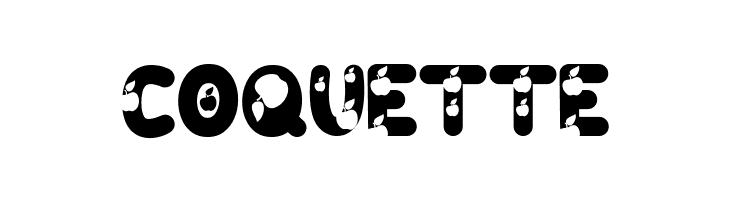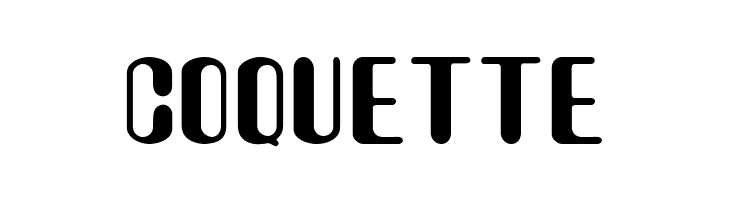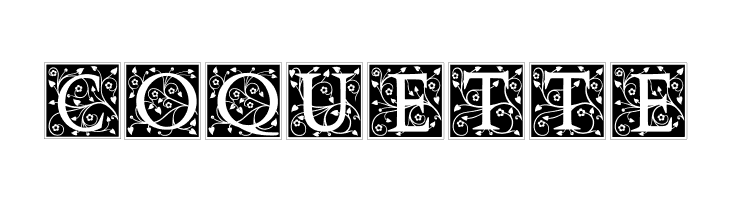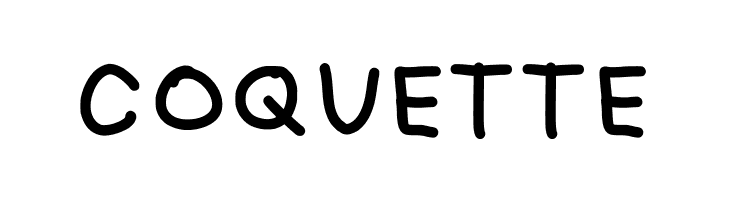
A playful, hand-drawn font with bold, rounded strokes and a whimsical style.
A playful, handwritten font with fluid strokes and a lively style.
A display font using portrait images for each character.
A pictorial font using stylized portraits for each character.
Photographic portrait-based decorative display font.
Photographic silhouette display font with unique images for each character.
Photographic portrait glyphs in a decorative, high-contrast style.
A display font using stylized photographic images for each character.
A playful, circle-patterned decorative font ideal for creative projects.
A dynamic and fluid script font with connected letterforms and a handwritten style.
A bold, flowing script font with elegant curves and dynamic style.
A playful, rounded font with a whimsical and friendly appearance.
An elegant script font with intricate swashes and flowing characters.
A bold, playful handwritten font with consistent strokes and a casual style.
A bold, playful font with bite-like cut-outs in each character.
A playful font made entirely of fruit illustrations, perfect for creative projects.
A delicate and flowing script font with elegant cursive letterforms.
A bold, decorative font with a distressed, vintage style.
A bold, dynamic font with thick strokes and a slight slant.
A bold, dynamic font with a playful, hand-painted style.
A playful, handwritten font with fluid strokes and a casual style.
A bold, italicized grunge font with a rugged, distressed texture.
A bold, distressed font with a grungy, vintage appearance.
A bold, geometric font with strong, authoritative characters.
A vintage, typewriter-style font with a rustic, distressed appearance.
An ornate, decorative font with intricate floral designs within square borders.